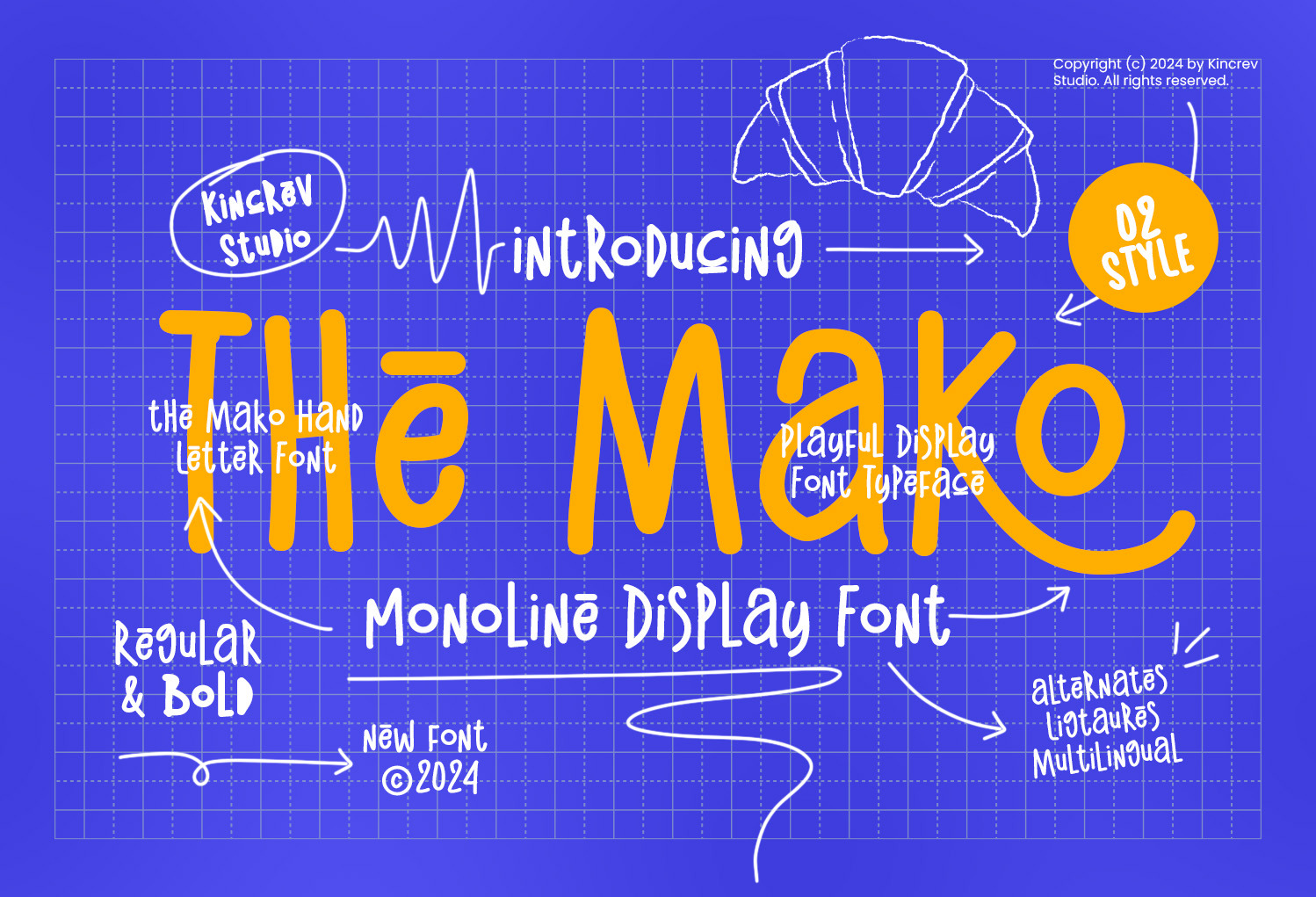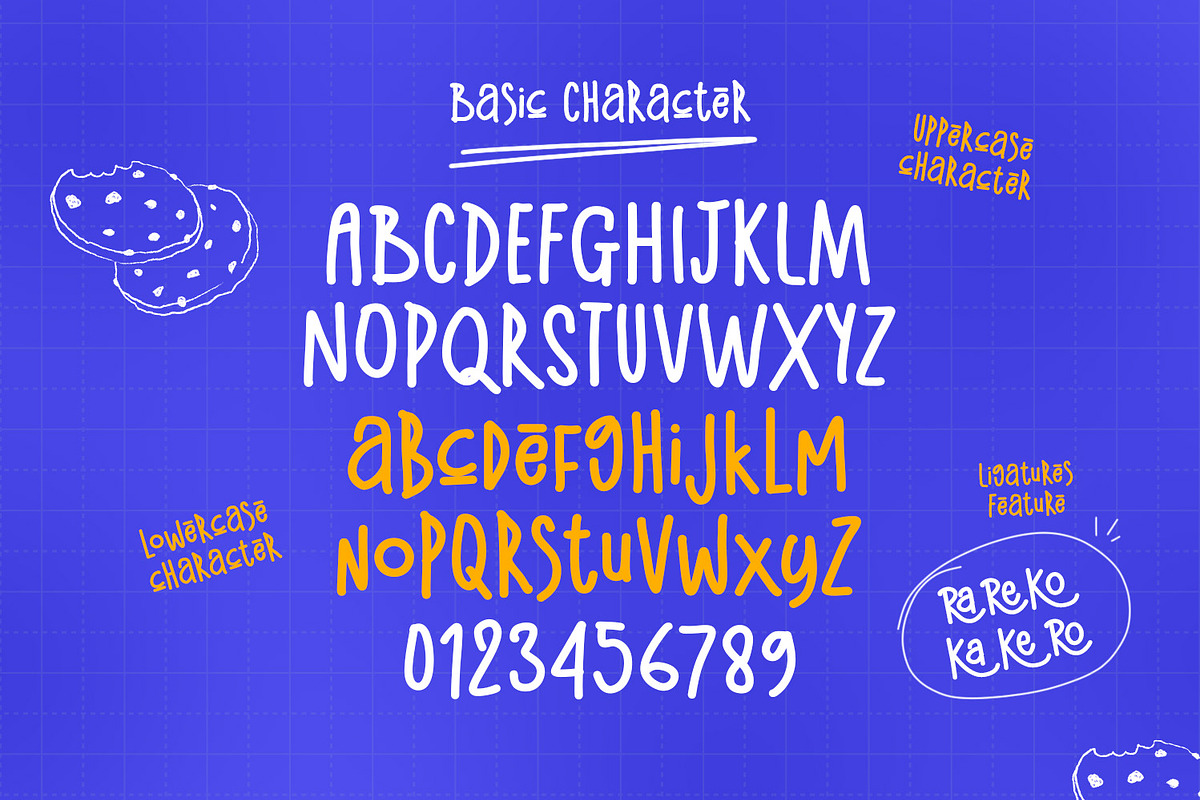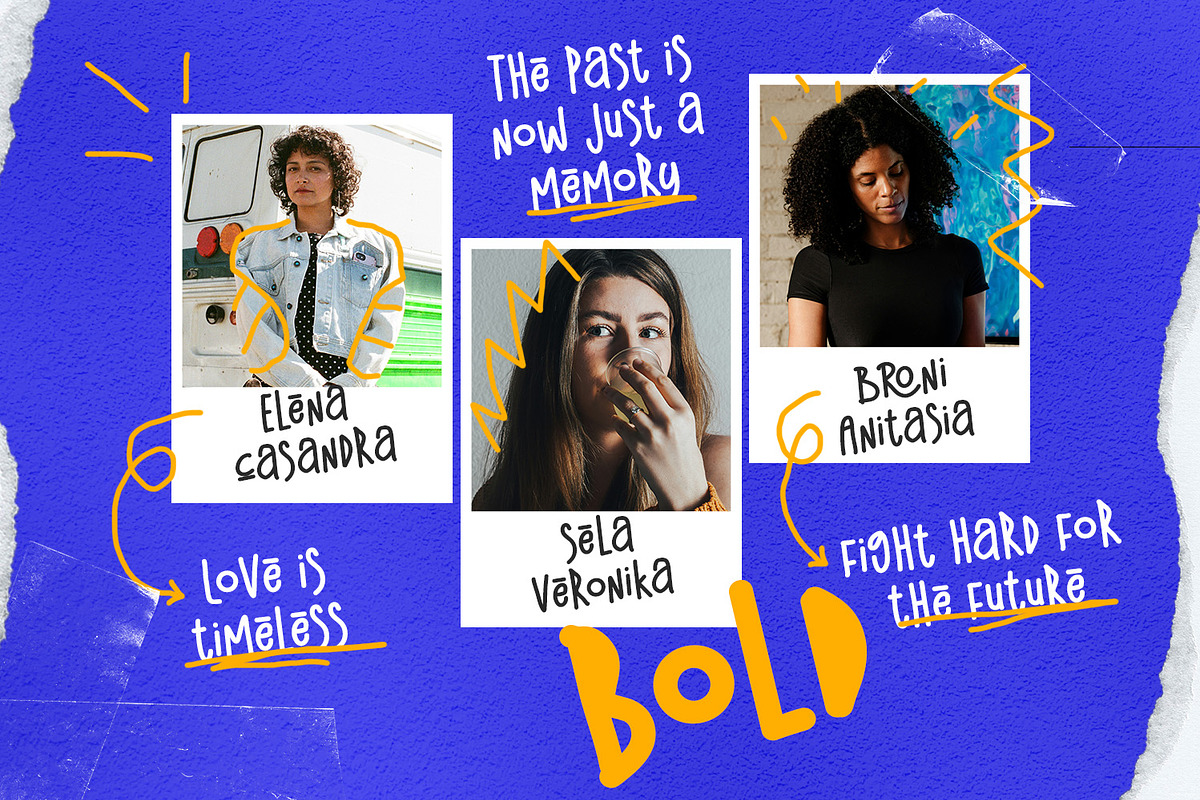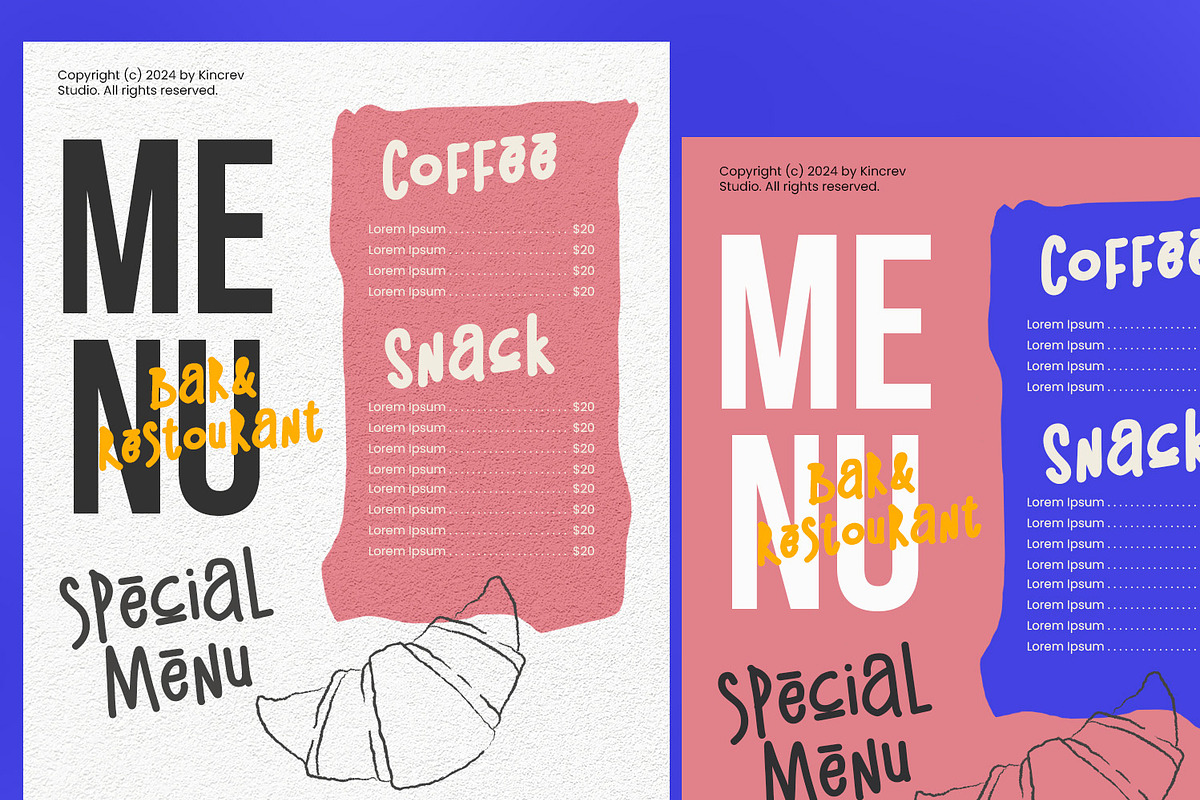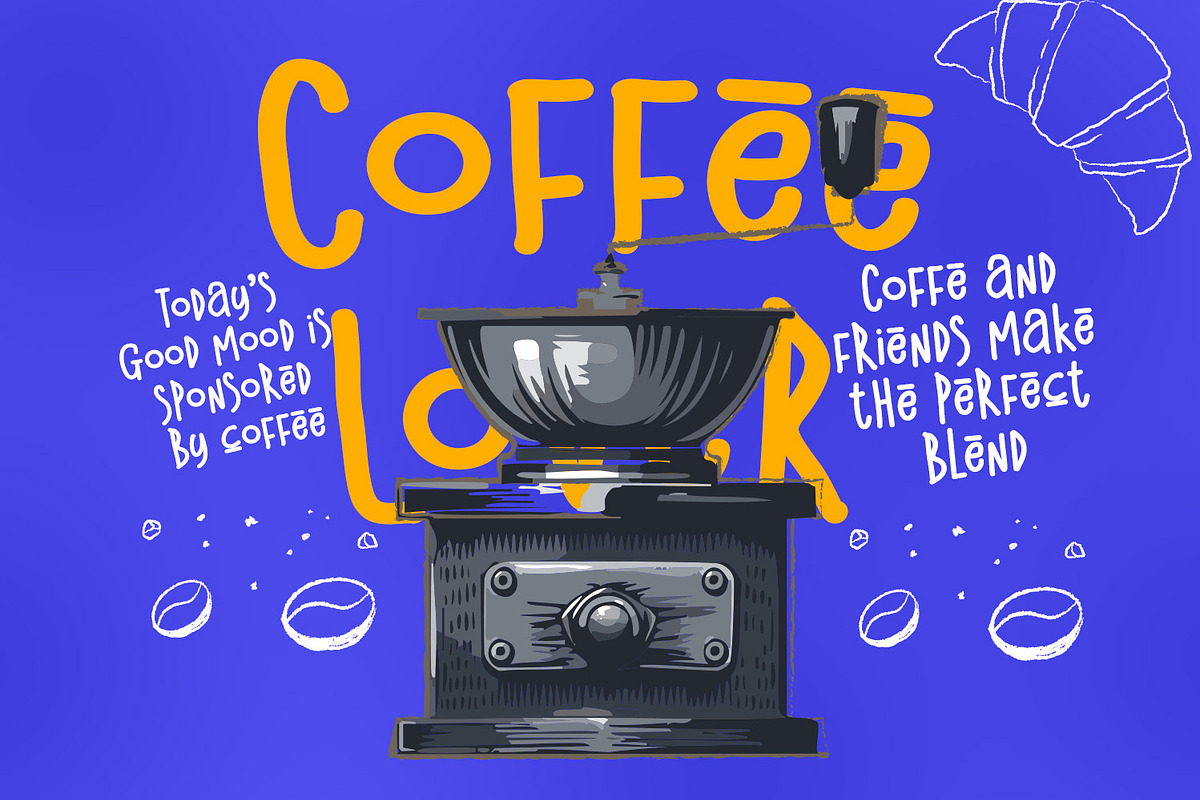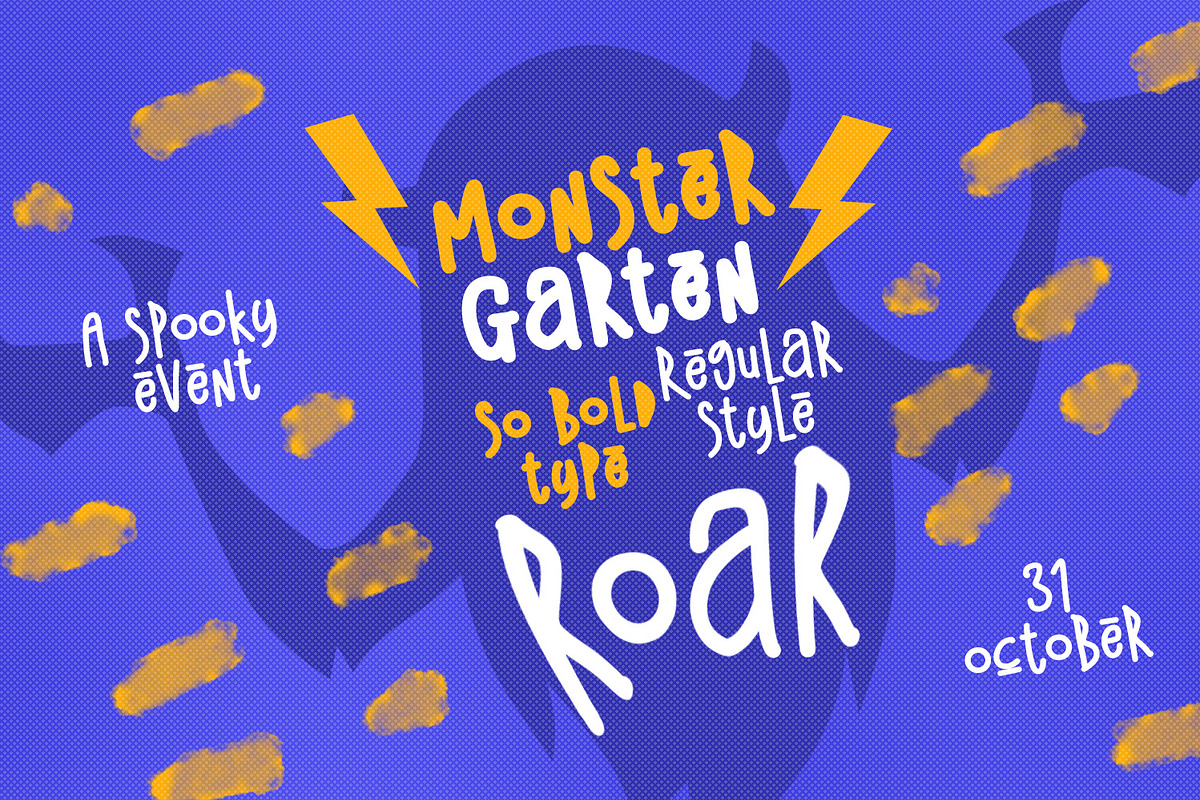
The Mako - Monoline Display Font
Hello, Everyone! Ready to make your branding design outstanding? If you need to create a stylist, bold, and creative look for your business, work on a poster for an event, or whatever your projects are, The Mako - Monoline Display Font is the perfect one for you.
The Mako, a display Font is font for you to get your designs with stylist, bold, and creative look. It is made in Uppercase Regular & Stylistic Alternates which are easy on the eyes and nice to look at, and easy to read. This font is designed to bring your brandings to life and add a touch of sporty modern, bold, fun and style.
- Ligatures feature
The Mako fits for any design projects, such as posters, banners, logos, book covers, album covers, quotes, invitations, greeting cards, name cards, headings, printed products, merchandise, social media, etc. Find out more ways to use this font by taking a look at the font preview.